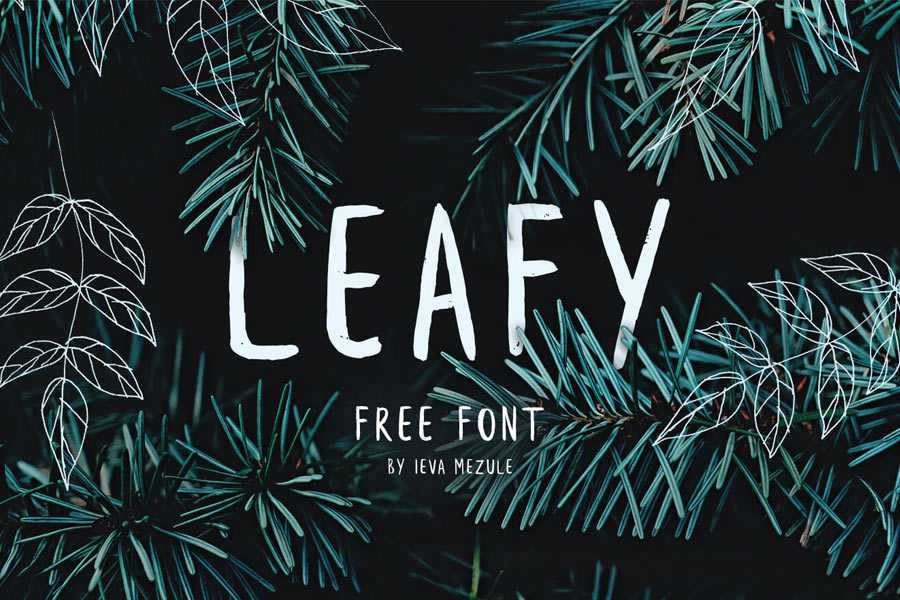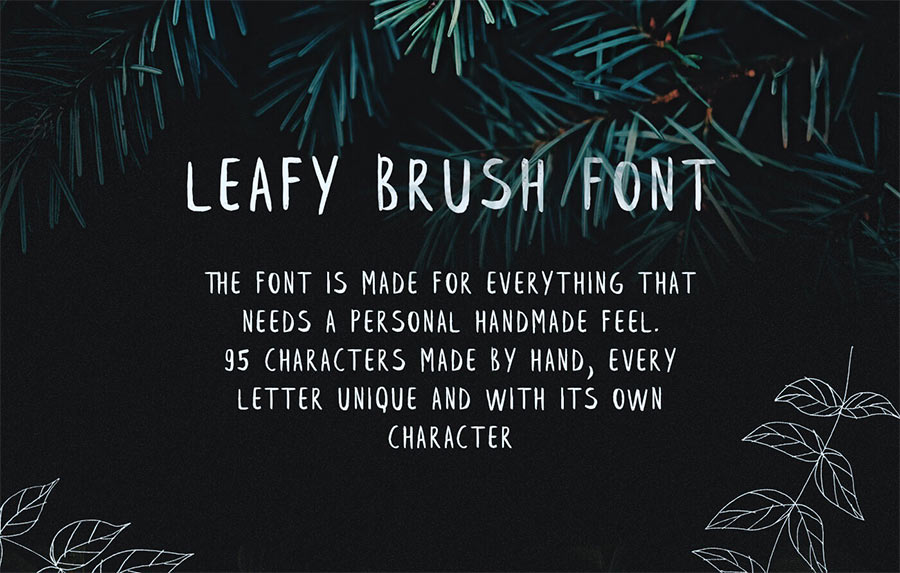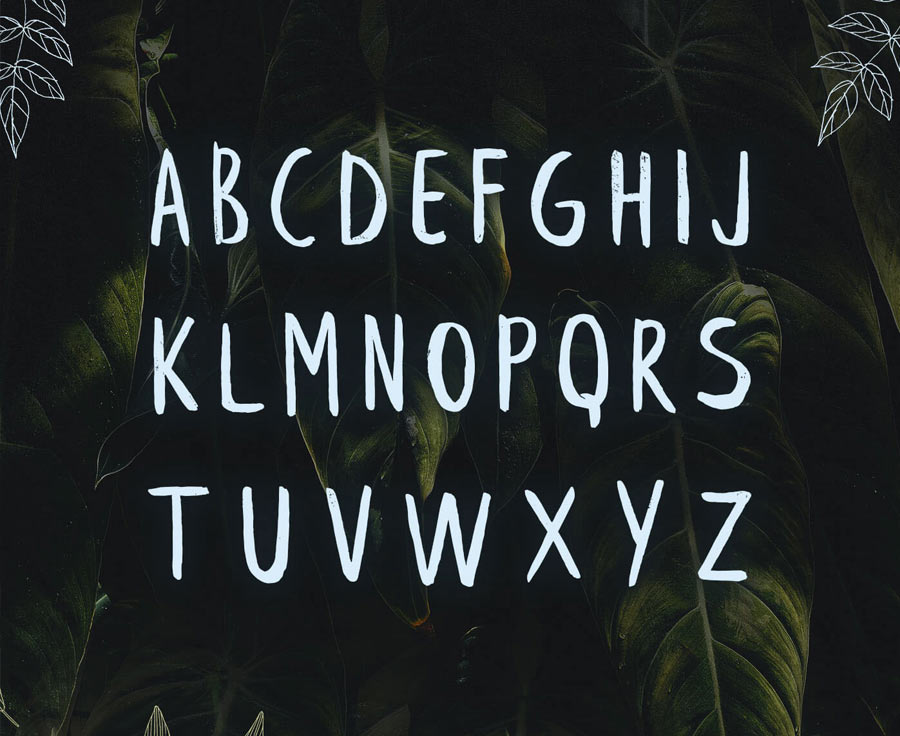
Leafy is a well made handwritten brush font, brushed by fashion designer Ieva Mezule. It has a total of 95 characters, all hand crafted and each of them possessed its own unique character, just like the leaves where there are no leaves that look the same.